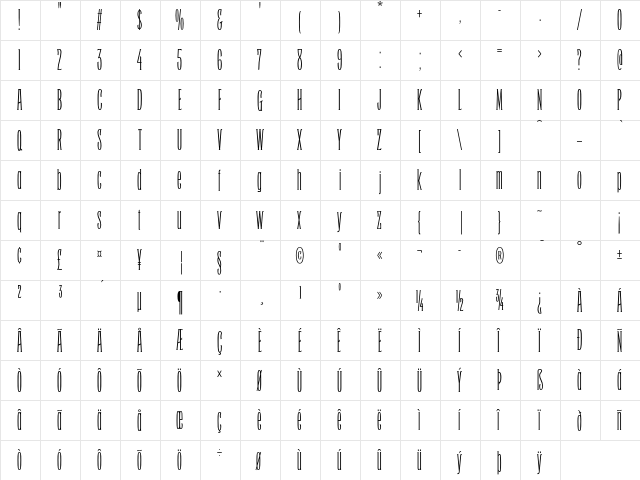
Facade MT Std Condensed
| Foundry | Agfa Monotype Corporation |
Design Context for Facade MT Std Typeface
Facade MT Std offers clean, dependable letterforms without strong stylistic allegiance, making it a practical choice for designers who need flexibility. Its narrow stance lets it pack a punch even in space-constrained designs.